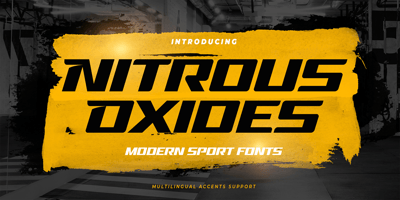
Nitrous Oxide
Nitrous Oxide font
Nitrous Oxide Font Family was designed by Abdul Malik Wisnu, Anang Fibriyanto and published by Gassstype. Nitrous Oxide contains 1 styles and family package options. Hello Everyone, introduce our new product Font Nitrous Oxides This Is Modern Sport Fonts.This is a Textured Natural Style and classy style with a clear style and dramatic movement.That is has charming, authentic and relaxed characteristic more natural look to your text.